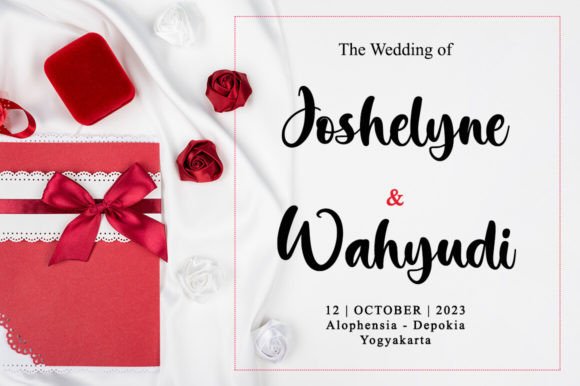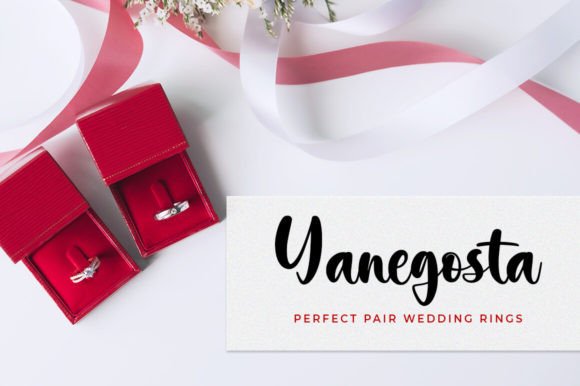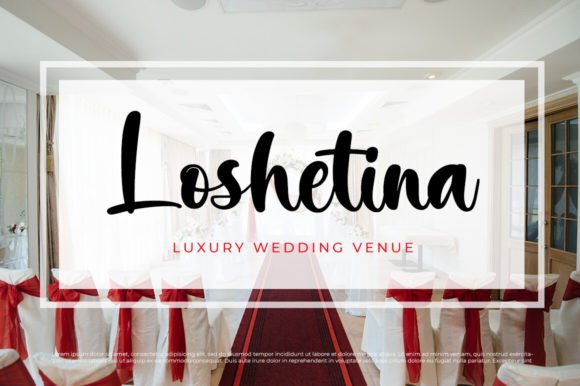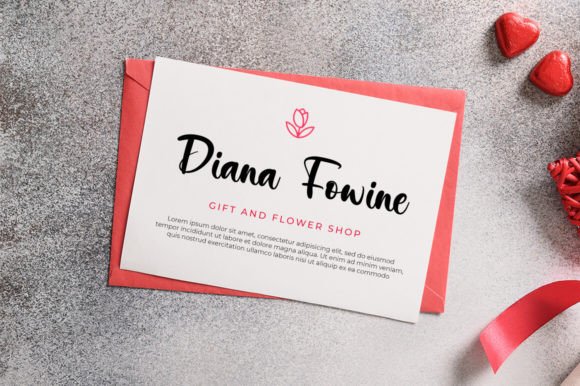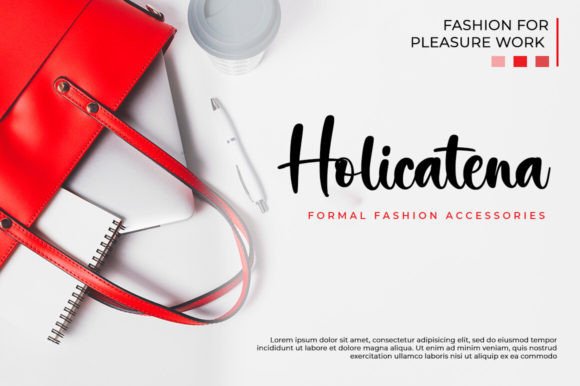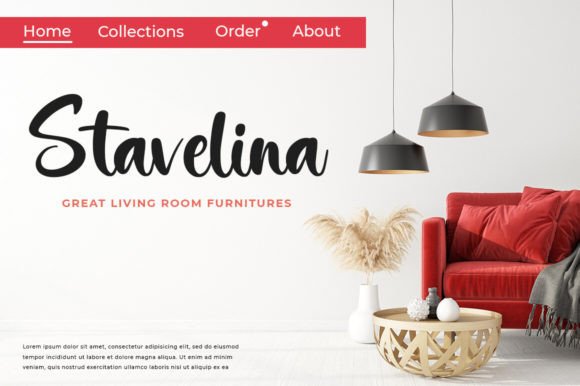
Unlocking the Art of Creativity with Calinette Font
Do you ever find yourself scrolling through Instagram, mesmerized by the elegant typography and calligraphy scripts that seem to leap off the screen? It’s a moment that sparks creativity and inspires us to try something new. For designers and creatives, this feeling is all too familiar – the thrill of bringing a vision to life through the perfect font.
Enter Calinette Font, a magical script font designed to elevate any creative project. With its delicate, hand-drawn lines and elegant flair, Calinette Font is the perfect tool for turning your ideas into stunning works of art. Whether you’re crafting a bespoke logo, designing a wedding invitation, or simply adding a touch of personality to your social media posts, Calinette Font is the ultimate companion for your creative journey.
As a valuable addition to any designer’s toolkit, Calinette Font offers a level of sophistication and refinement that’s hard to find in other fonts. Its versatility and beauty make it an indispensable resource for anyone looking to take their creative projects to the next level.
- Unique Characteristics: The font features a unique, hand-drawn style with elegant lines and subtle flourishes, making it perfect for creative and artistic designs.
Designer Review: Calinette Font
I recently had the chance to work with the Calinette font, and overall, I was quite impressed. ✨ One of the things that stood out to me was its elegant and sophisticated design. It’s perfect for creating a high-end or luxury feel in your designs.
- ✨ The font’s intricate details and flourishes add a level of sophistication and refinement that’s hard to find in other fonts.
- ✨ The Calinette font also features a wide range of weights and styles, making it easy to use in a variety of design contexts.
However, there are a few limitations to be aware of. ⚠️ One of the main issues is that the font can be quite dense, which may make it difficult to read in smaller sizes. Additionally, the font’s intricate details can sometimes make it difficult to pair with other fonts, as they may compete for attention.
Overall, I was really impressed with the Calinette font. Its unique design and wide range of styles make it a great choice for anyone looking to add a touch of sophistication to their designs. However, it’s worth keeping in mind that it may not be the best choice for every project, and you may need to do some extra work to get the most out of it.
Tips for Getting the Most Out of Calinette Font
Use Calinette Font for creative and artistic projects, such as invitations, posters, and social media graphics.
Pair Calinette Font with other elegant and sophisticated fonts for a unique and stylish look.
Experiment with different font sizes and styles to add visual interest to your designs.
Food and drink branding
Social media graphics and ads
Artistic and creative projects